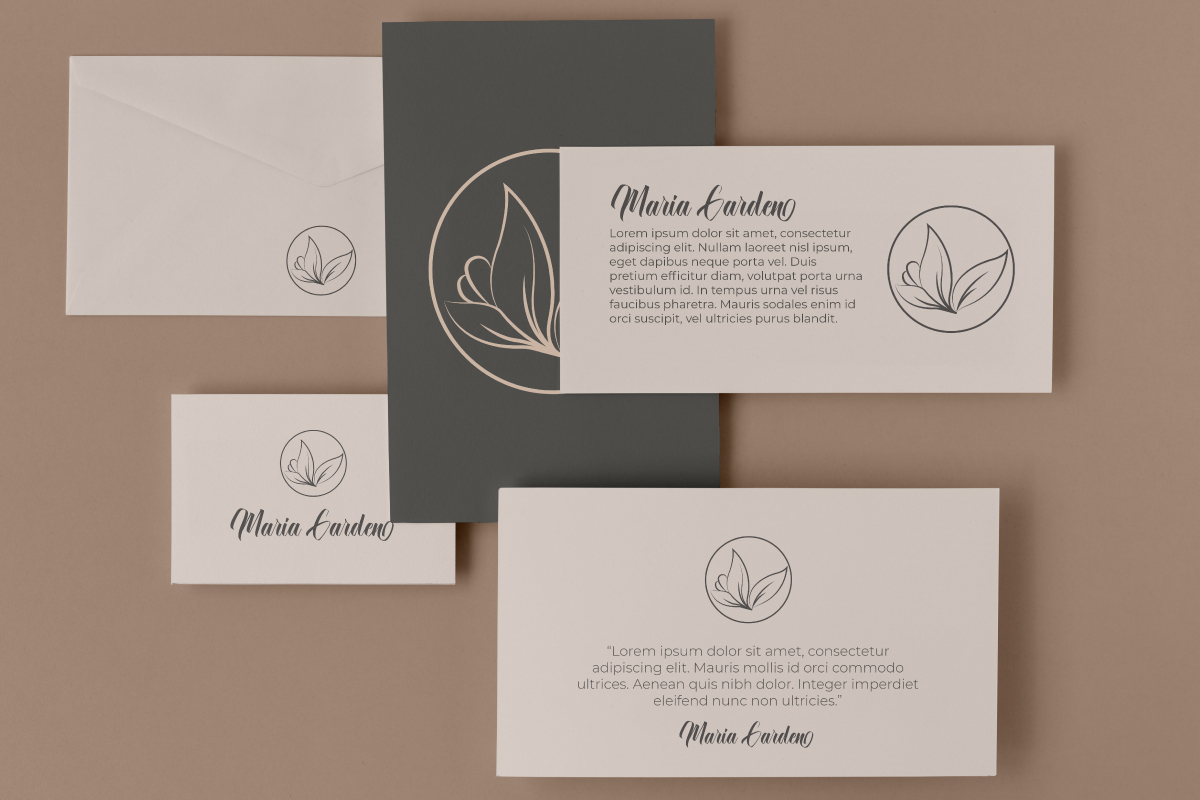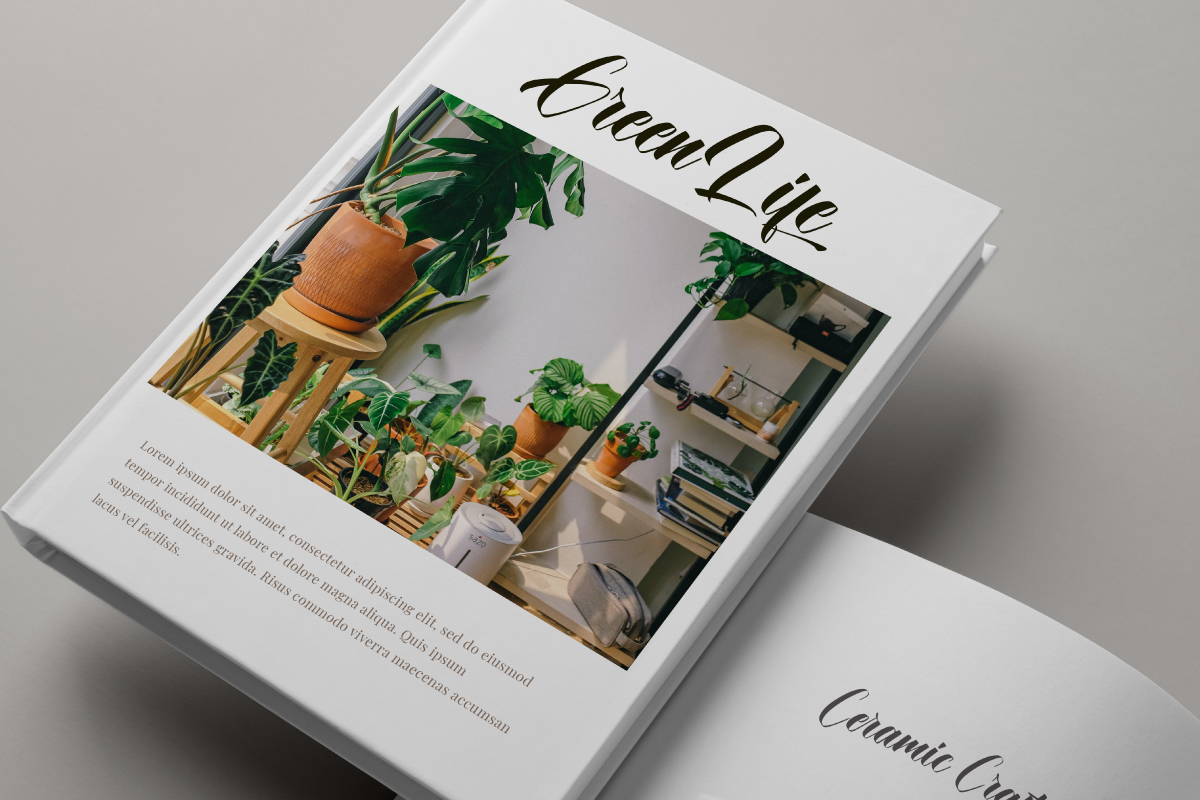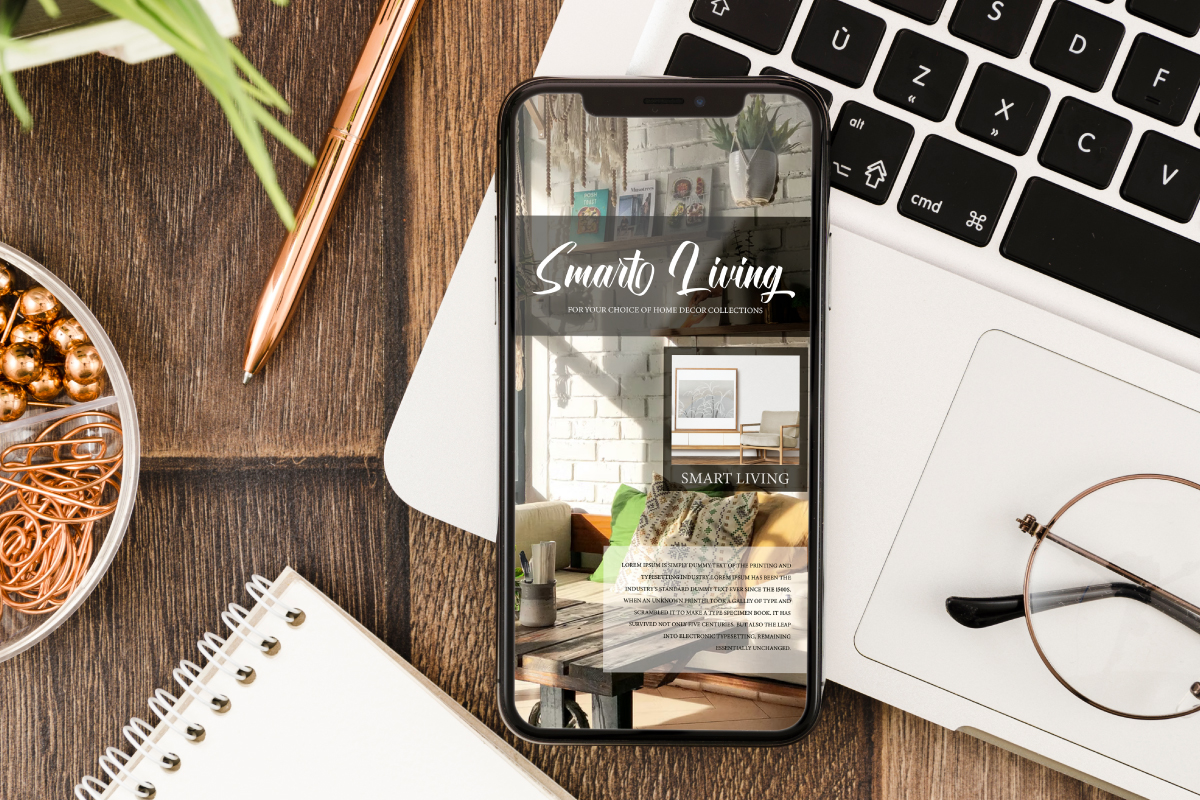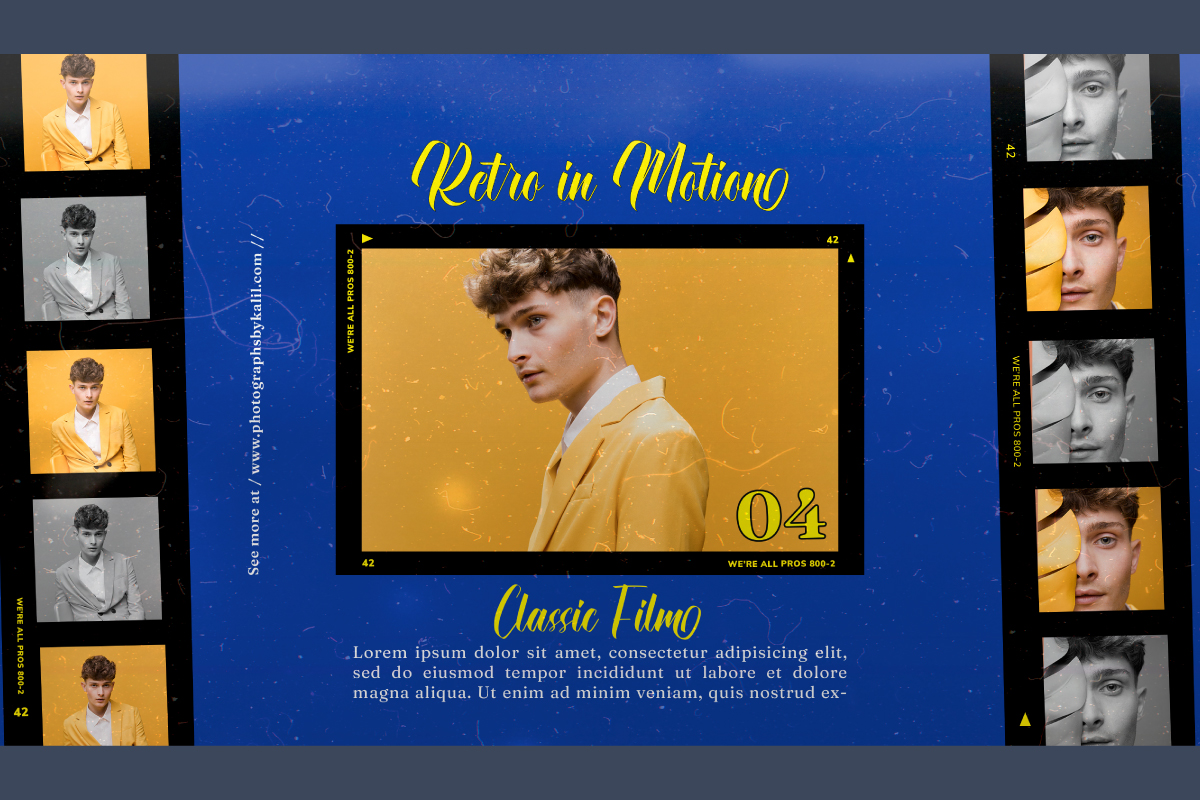
Cinemation Font
Cinemation Script Font is a stylish script font with calligraphy style. This font has bold lines inspired by vintage or retro film themes that is made more modern and still easy to read. This font has a elegant appearance making it suitable for many industries, such as event or wedding organizer, fashion, festival, homeware, movie, printing, publishing, restaurant, theatre, and more!